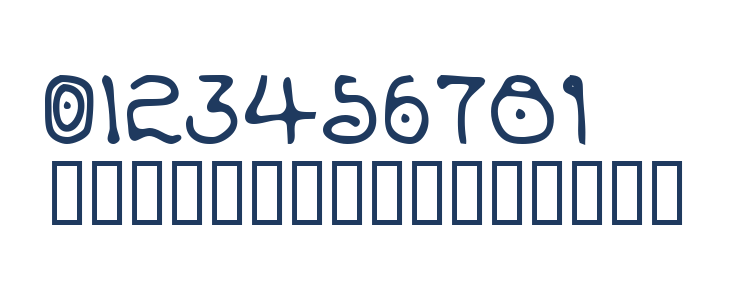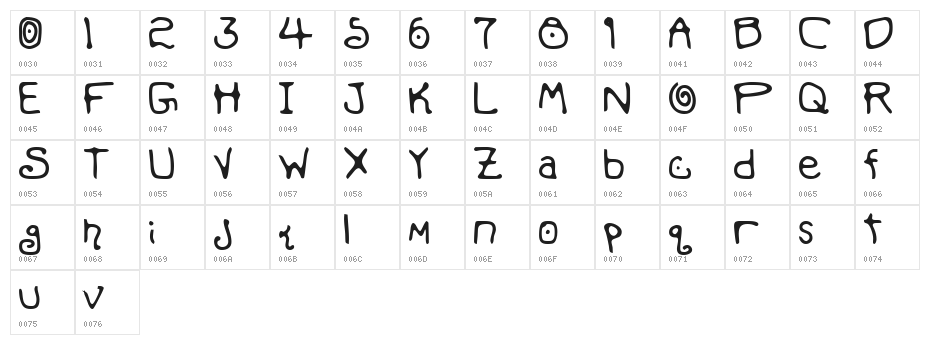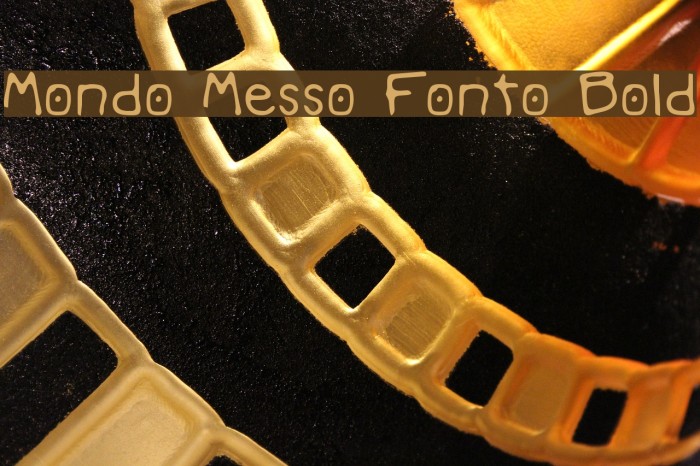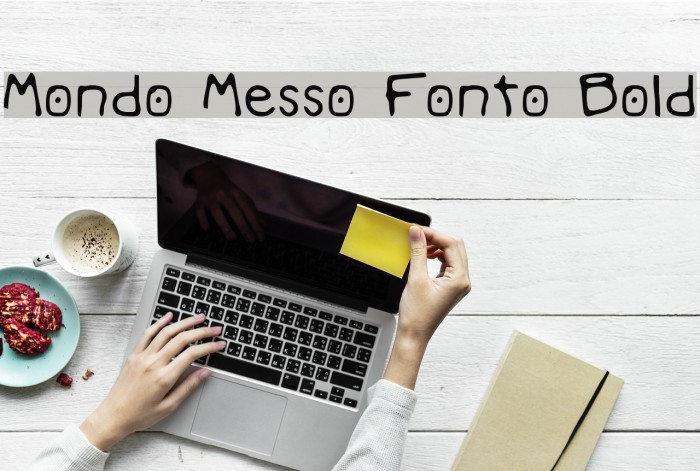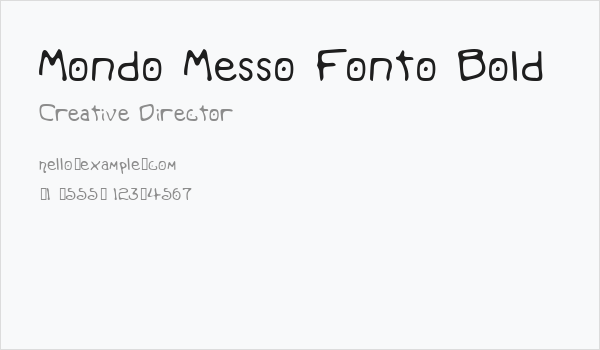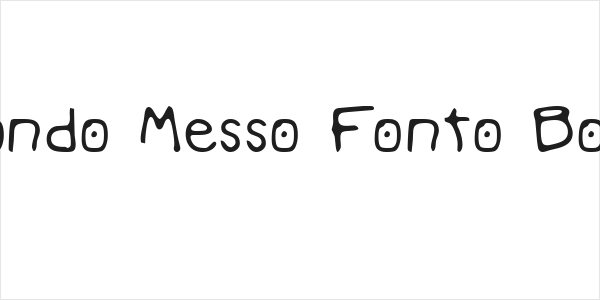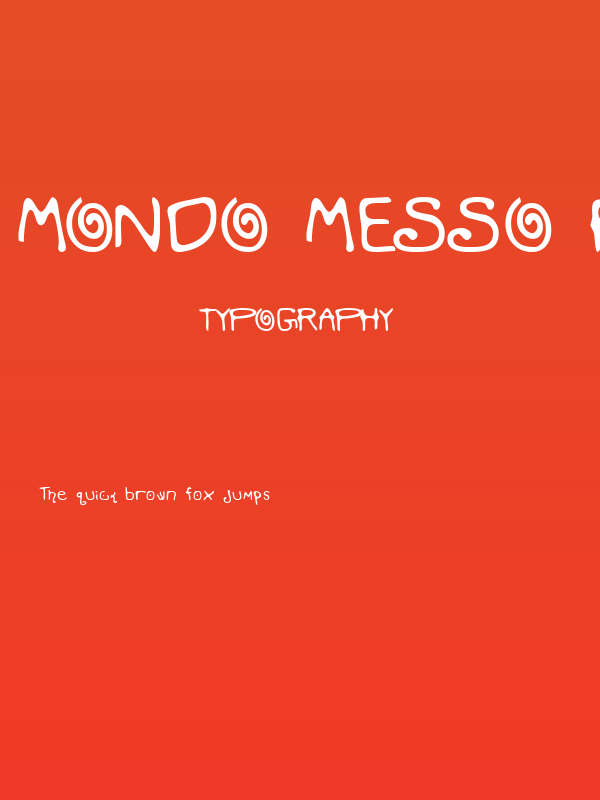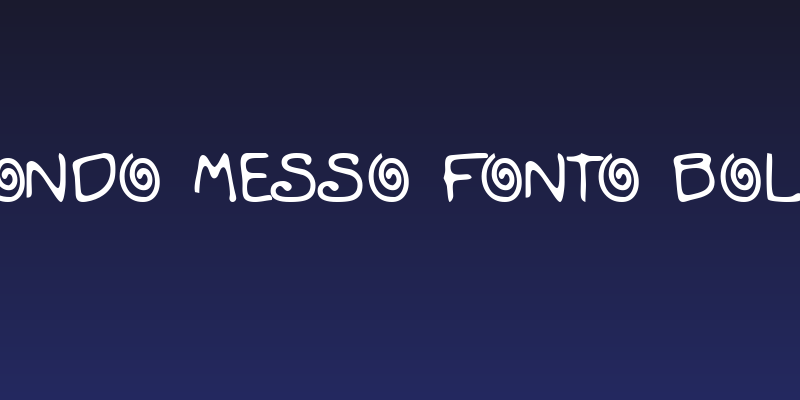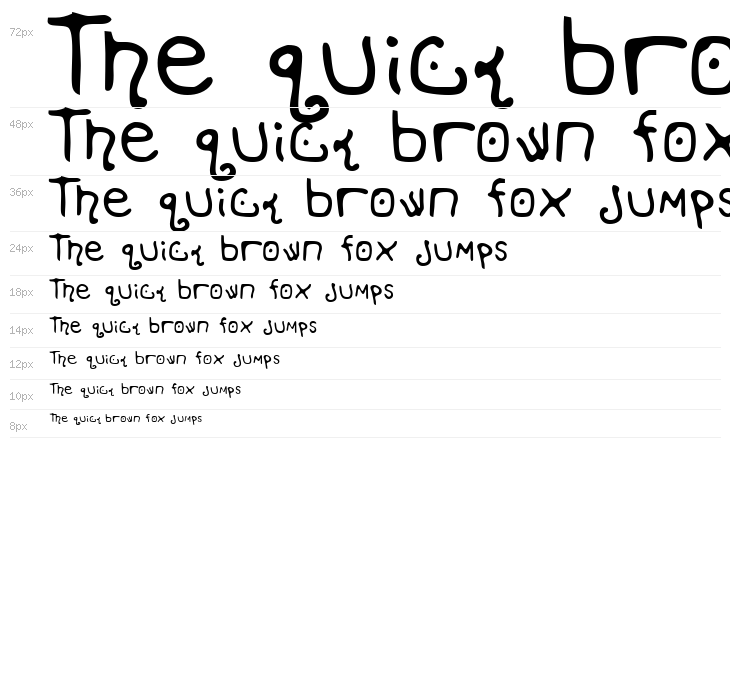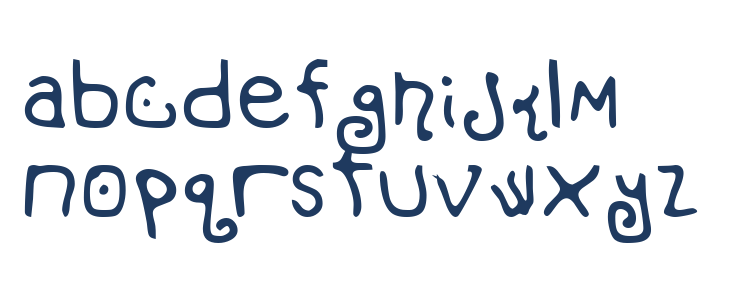
Mondo Messo Fonto Bold Font
Mondo Messo Fonto Bold Description
This font features a playful and whimsical design, characterized by its wavy and irregular strokes that give it a hand-drawn appearance. The uppercase letters are bold and slightly distorted, adding a sense of movement and energy. The lowercase letters maintain this quirky style, with some characters having unique loops and swirls that enhance the font's playful nature. The numbers and special characters follow the same design principles, ensuring consistency throughout. This font is ideal for projects that require a fun and informal touch.
| Overall Style | Whimsical |
| Proposed Projects | Ideal for children's books, playful branding, creative posters, and informal invitations. |